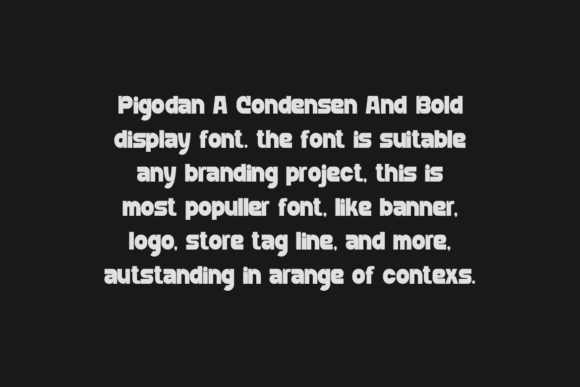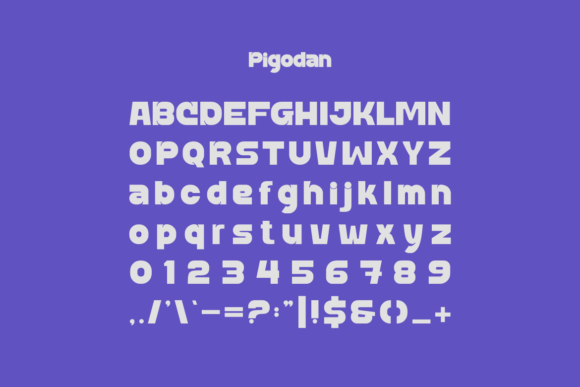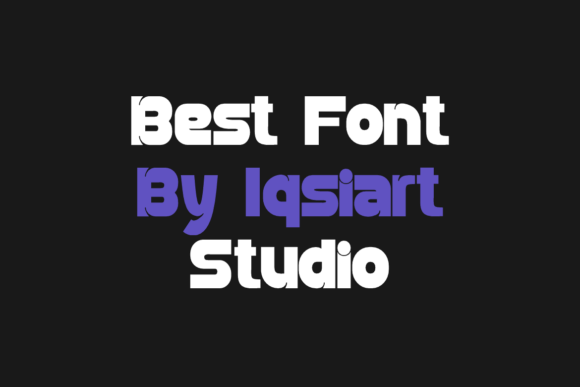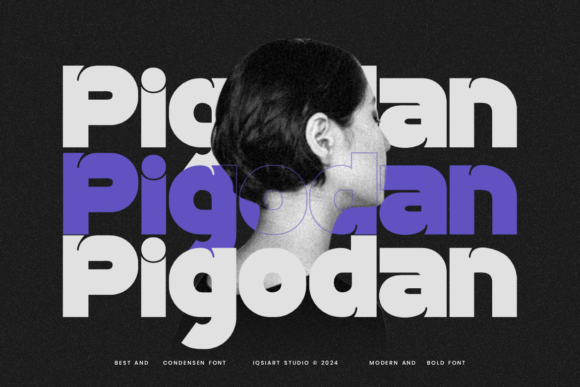
Introduction to Pigodan Font
Pigodan is a stylish and authentic display font.
It’s perfect for different projects like logos, posters, or branding Simple and versatile, it adds a unique touch to your designs.
Key Features of Pigodan Font
Why Choose Pigodan Font?
Pigodan Font offers exceptional quality and versatility, making it a valuable addition to your design toolkit. Whether you’re creating for personal projects or commercial use, Pigodan Font delivers professional results.